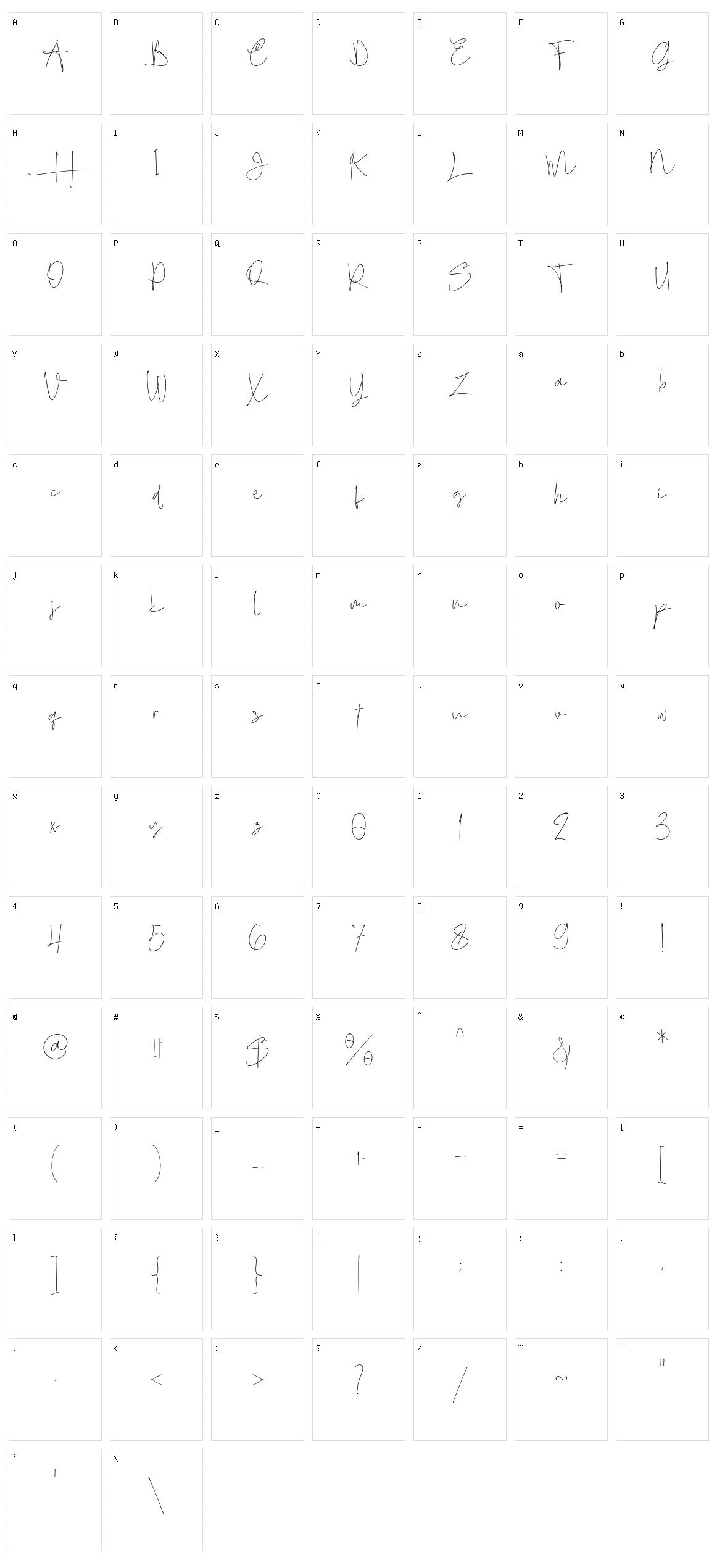
The free font Hand Real is carefully designed by Alit Design, showcasing a thoughtful balance of creativity and usability and falls under the Script font style. When you download the ZIP file, it contains only 1166.49 KB of font files, making it lightweight and quick to download. Please review the license details below to understand permitted usage and distribution rights. If license information is not available, we recommend using this font for personal projects only or contacting the author directly for commercial usage permissions.